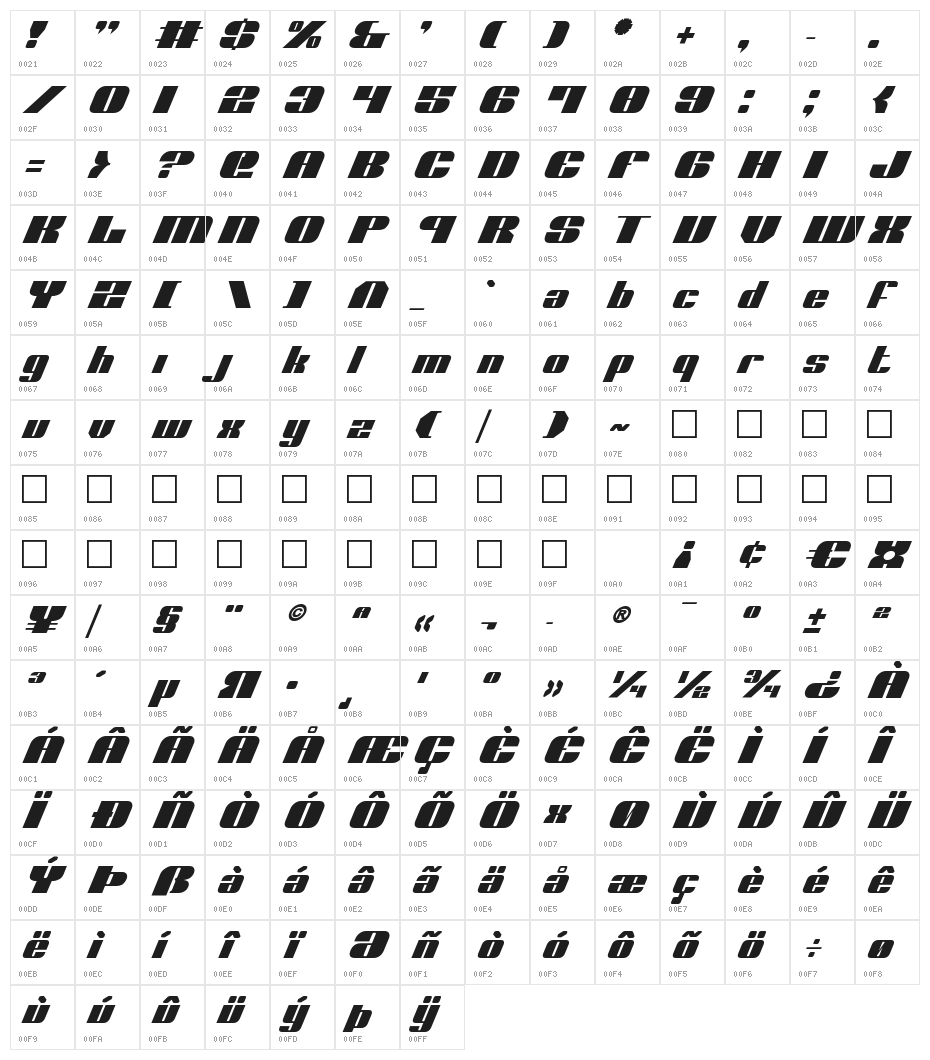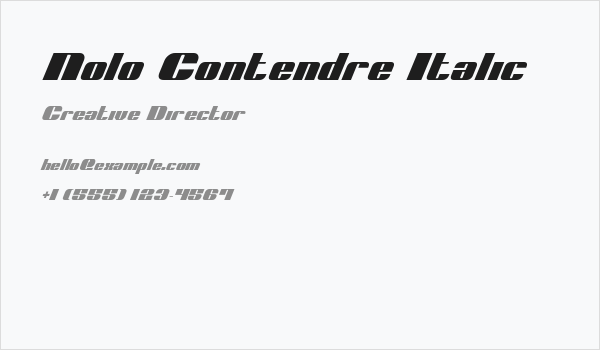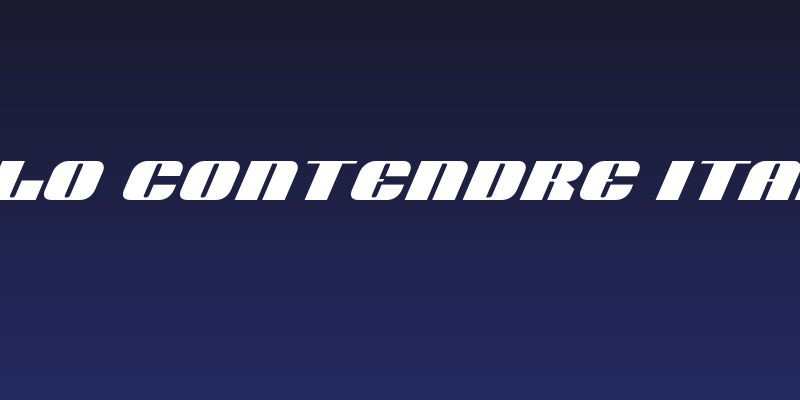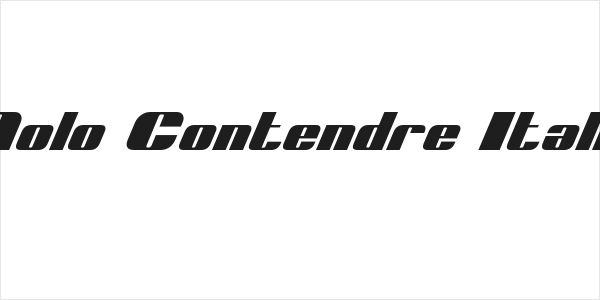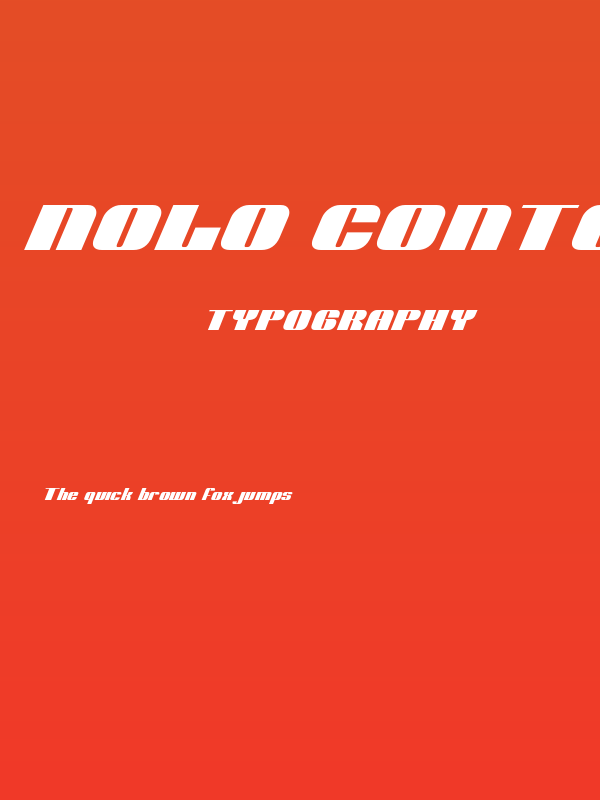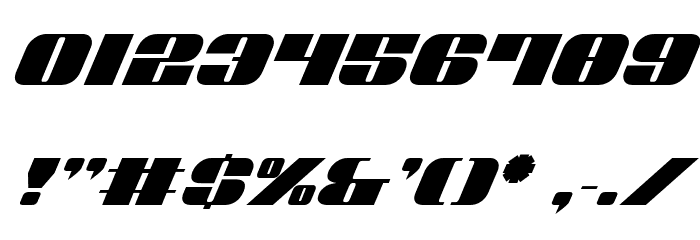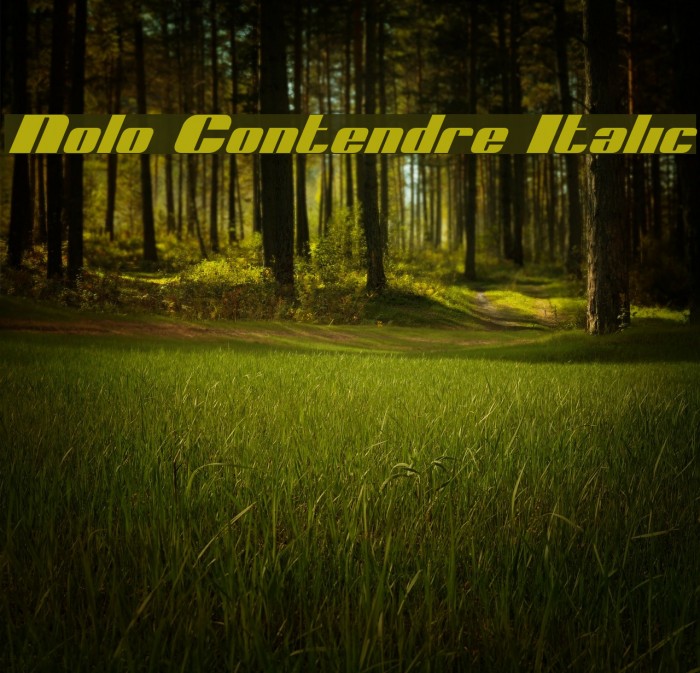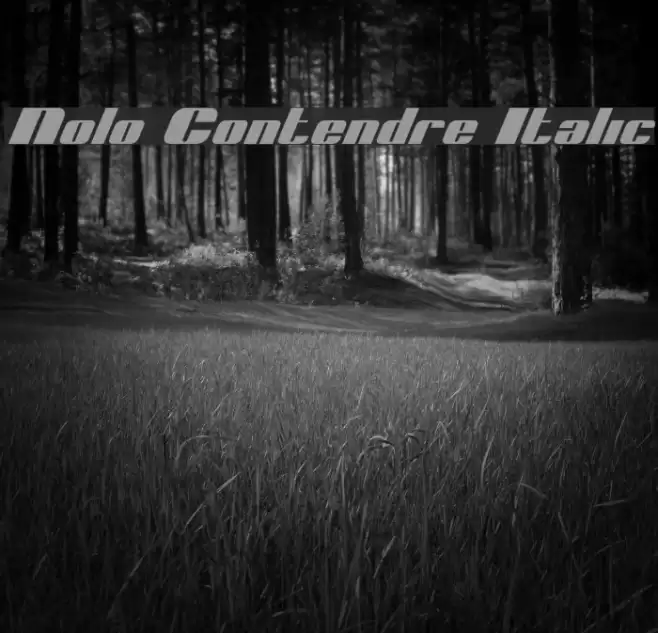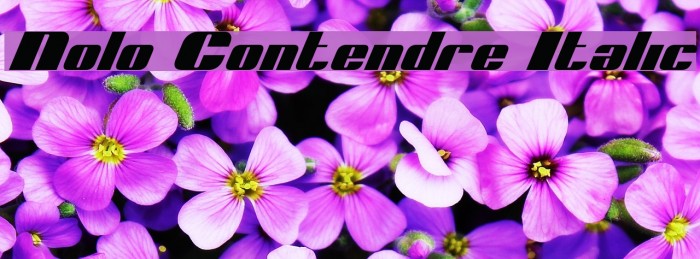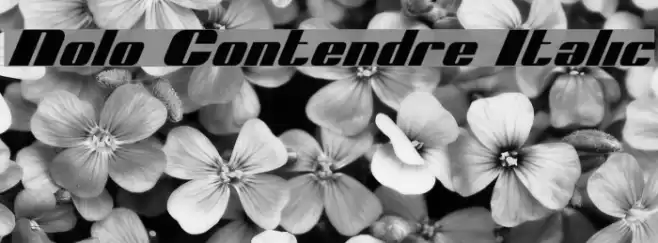
Nolo Contendre Italic Font
Nolo Contendre Italic Description
This font features a bold, italicized style with a strong, dynamic presence. The characters are wide and have a distinct slant, giving them a sense of motion and energy. The strokes are thick and consistent, creating a uniform appearance across all characters. The uppercase and lowercase letters maintain a cohesive design, while the numbers and special characters complement the overall aesthetic. This font is ideal for making a bold statement and capturing attention.
| Proposed Projects | Ideal for sports branding, dynamic posters, and eye-catching headlines. |